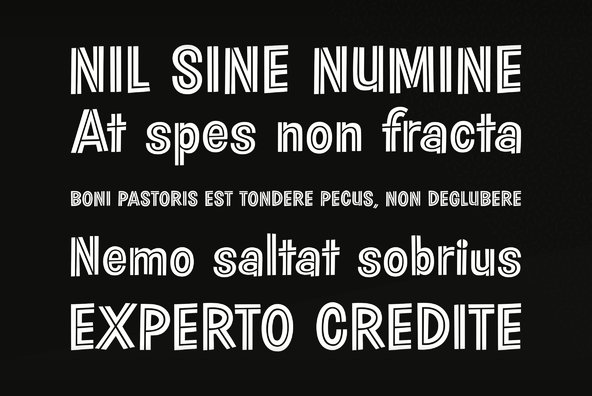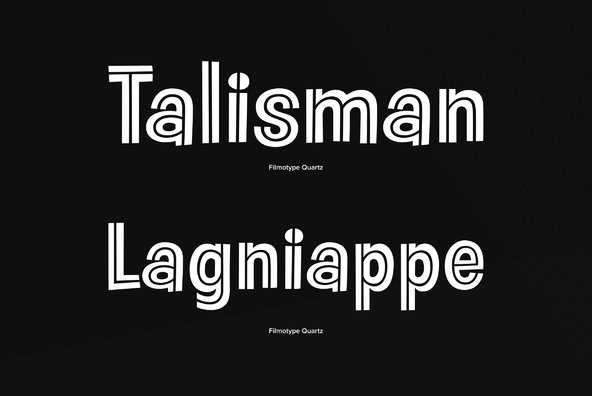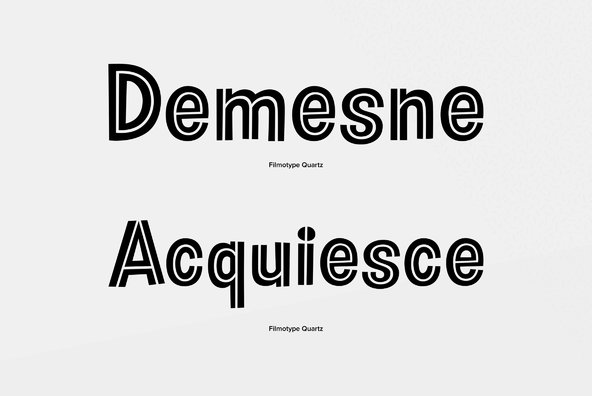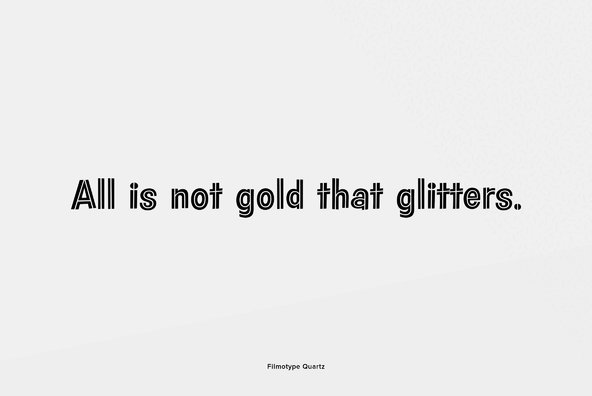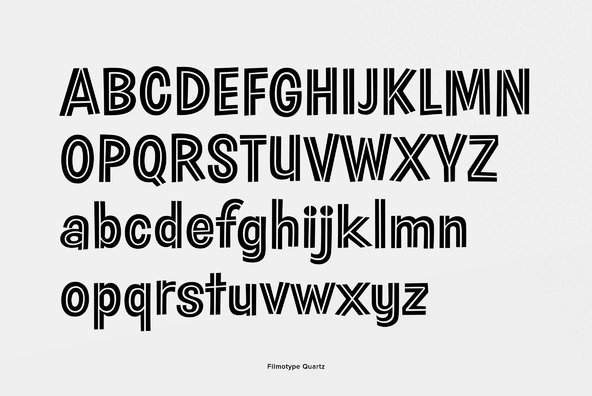
Filmotype Quartz
As the Filmotype library grew throughout the 1960s, Filmotype Quartz was added to refresh and expand its novelty typeface styles. This playful mod-style sans serif has a wonderful inline effect yet remains readable even at smaller sizes.
Remastered and expanded with exacting precision from the original filmstrips, Filmotype Quartz includes a full international character compliment, automatic fractionals, ordinals, and a suite of alternate forms in dynamic OpenType format.